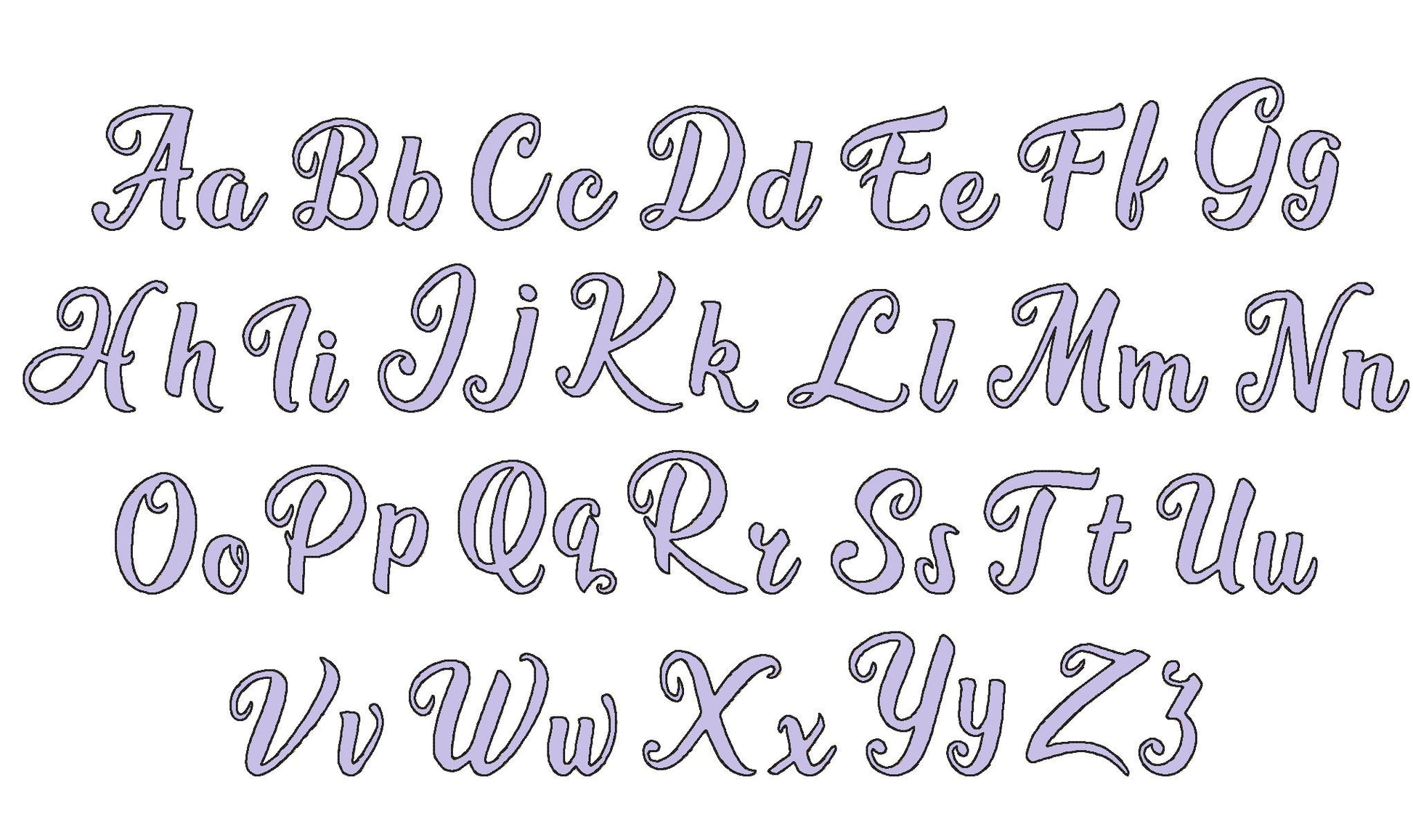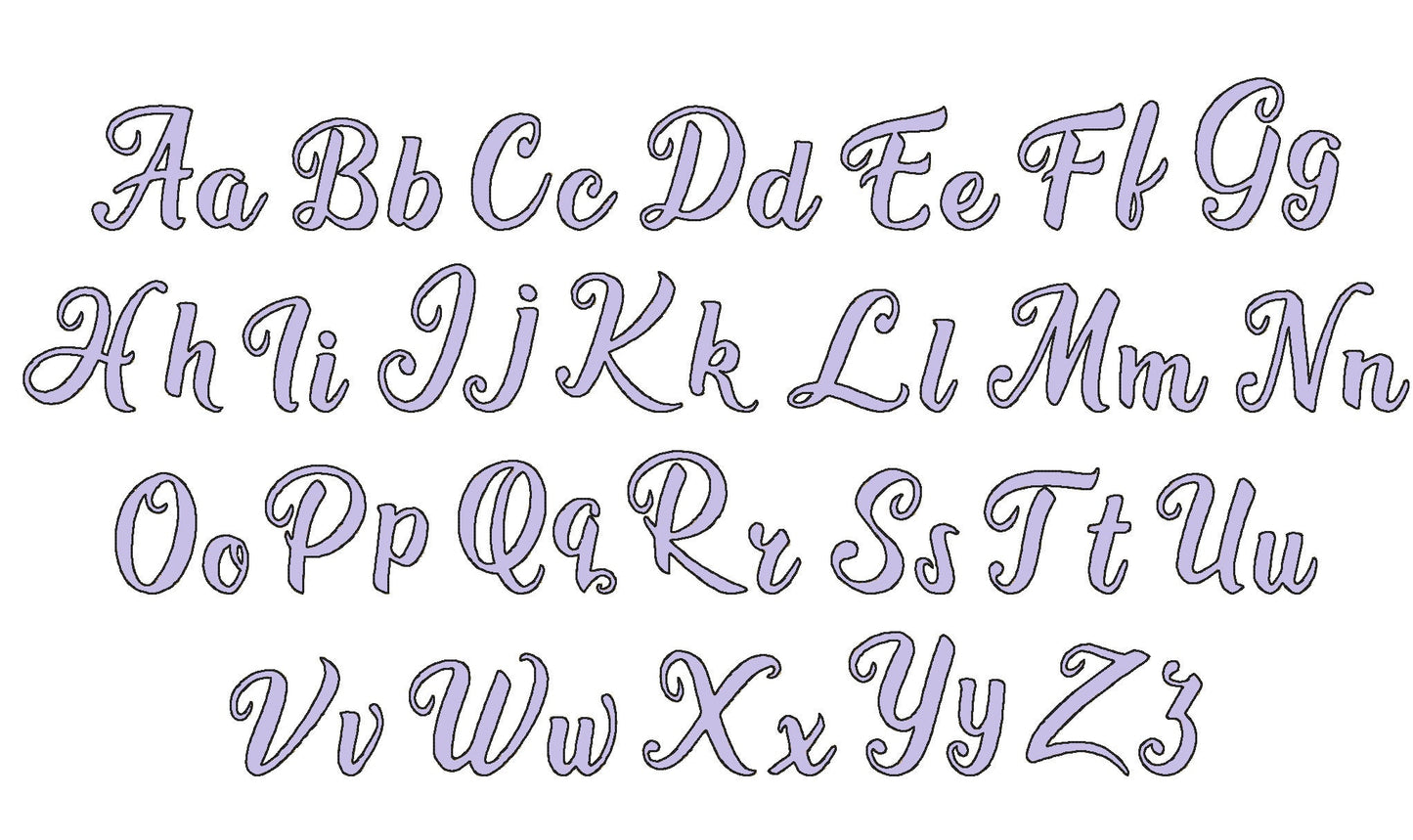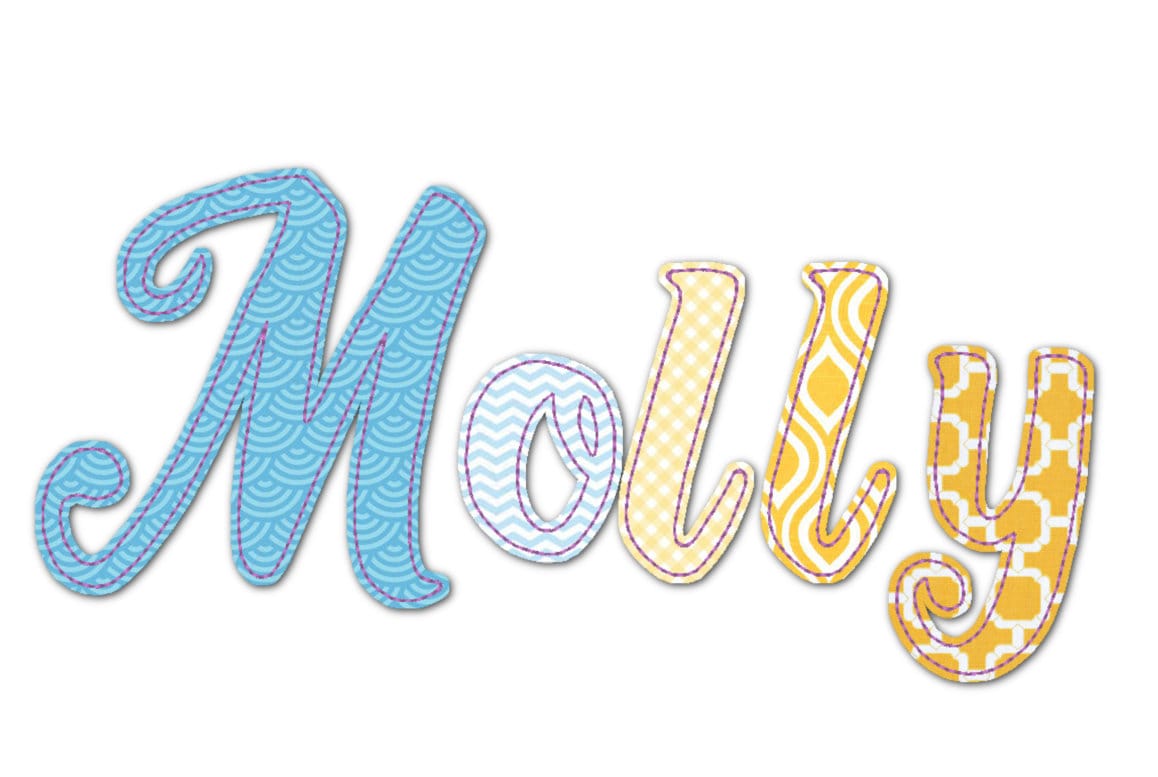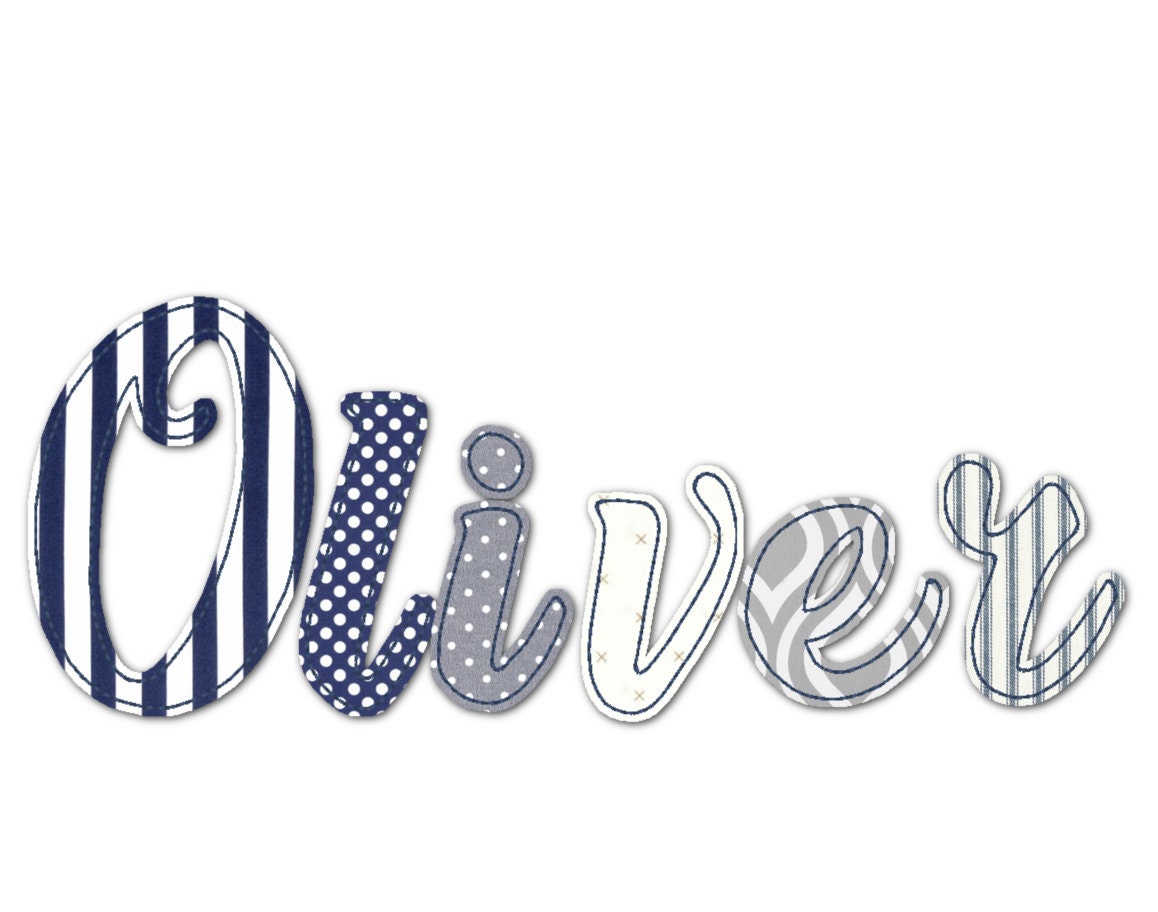
Raggedy Edge Applique Font Molly
Or click to open the linkA raggedy edge applique script: stitch, then trim the fabric for a soft frayed look. Cozy for names on quilts, pillows and kids' clothes.
- Raggedy edge applique script font
- Uppercase and lowercase letters